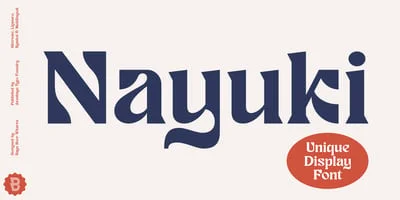
Nayuki Font
Nayuki Font is perfect for Japanese anime studios, kawaii lifestyle brands, manga publication materials, Japanese cultural centers, kawaii café signage, anime convention posters, J-pop album covers, Japanese gaming companies, and cute social media campaigns. This charming typeface brings Japanese cuteness and kawaii sophistication to both digital and print design applications.
Nayuki Font is exciting because it embodies the adorable charm and delicate beauty of Japanese kawaii culture, making it an exceptional choice for designers who want to convey cuteness and innocence with authentic Japanese aesthetic appeal. Its gentle letterforms and sweet character provide the perfect combination of kawaii elegance and functional readability, ensuring your projects communicate adorable charm, cultural authenticity, and Japanese excellence that resonates with audiences seeking genuine kawaii experiences and Japanese cultural connection.
The Nayuki Font family includes kawaii weight variations and Japanese elements, featuring light, regular, and medium weights with complementary cute styles, kawaii ligatures, and Japanese-inspired decorative flourishes. Each style maintains consistent adorable aesthetics while offering flexibility for different kawaii applications, allowing designers to create charming visual systems that reflect Japanese cuteness and kawaii sophistication.
Whether you're designing for Japanese brands, anime companies, or kawaii lifestyle businesses, Nayuki Font delivers authentic kawaii appeal and Japanese sophistication that connects with audiences seeking genuine cuteness and Japanese cultural experiences. This premium typeface offers designers the adorable charm and kawaii elegance needed to create designs that communicate Japanese culture, cute aesthetics, and kawaii excellence effectively. The font's charming character makes it perfect for kawaii branding, Japanese campaigns, and cute applications where authentic kawaii credibility is essential. Download Nayuki Font today and kawaii-fy your creative projects with genuine Japanese sophistication and adorable typography excellence that defines kawaii design standards.